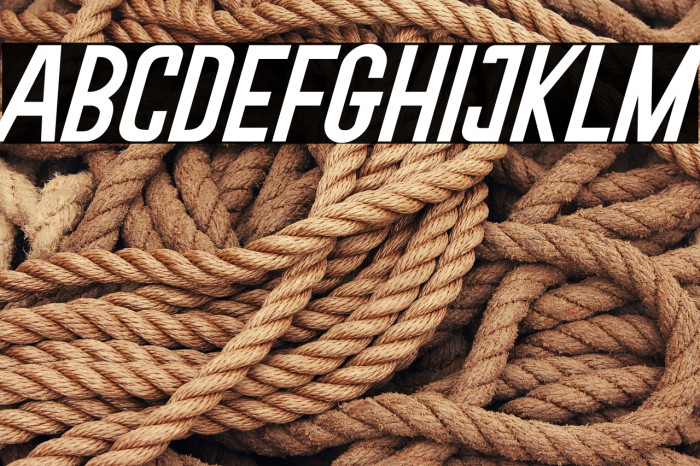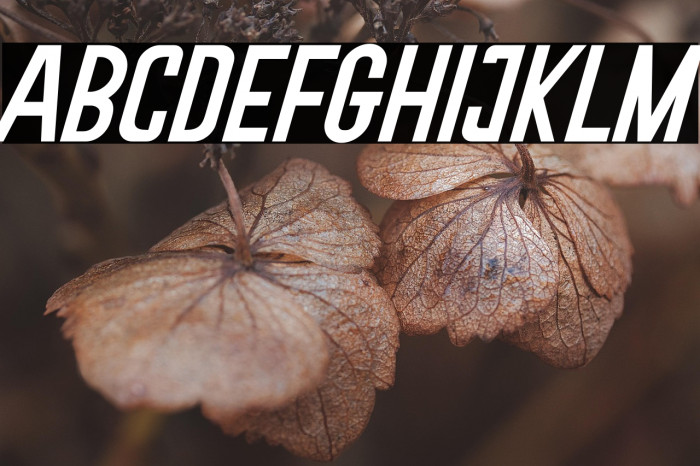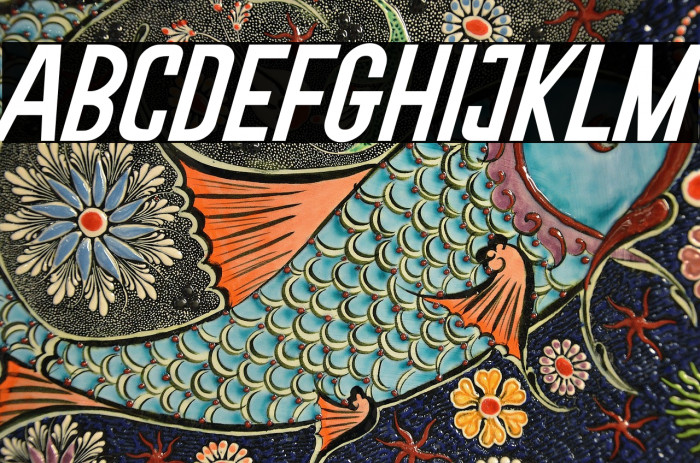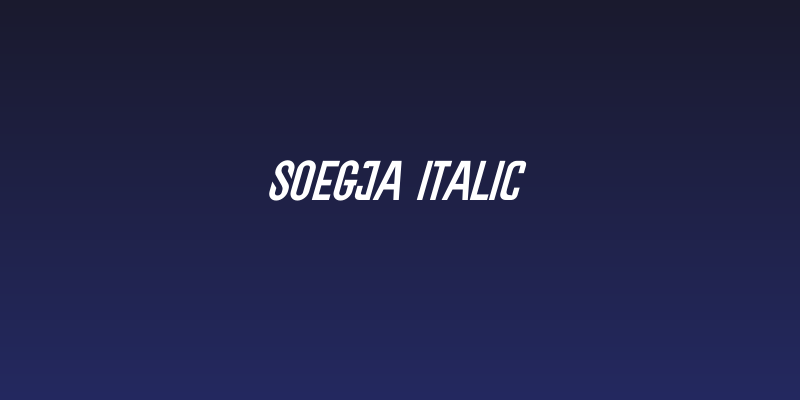
Soegja Italic Font
Soegja Italic Description
This font features a dynamic and modern italic style, characterized by its slanted and elongated letterforms that convey a sense of movement and energy. The uppercase and lowercase letters maintain a consistent slant, enhancing readability while adding a sleek, contemporary feel. The numerals and special characters are designed with the same italicized flair, ensuring uniformity across all text elements. The strokes are bold, providing a strong visual impact, while the spacing between characters is moderately tight, which contributes to its compact appearance. This font is well-suited for projects that require a modern and energetic aesthetic.
Use CaseHeadlines, Logos, Advertising
Proposed ProjectsIdeal for branding, advertising, headlines, and digital media where a modern and energetic style is desired.